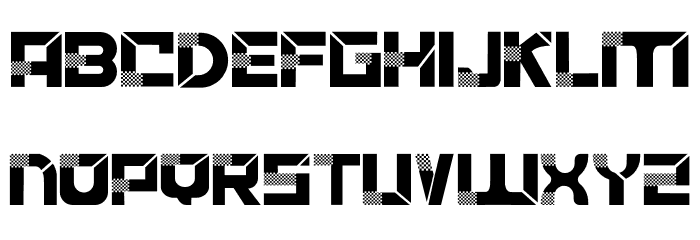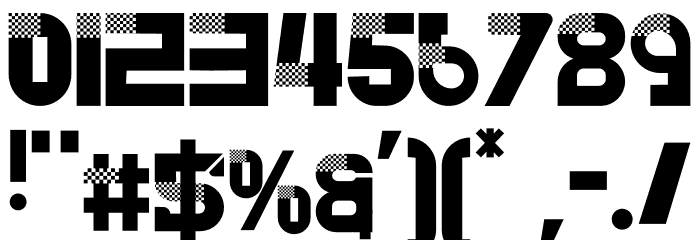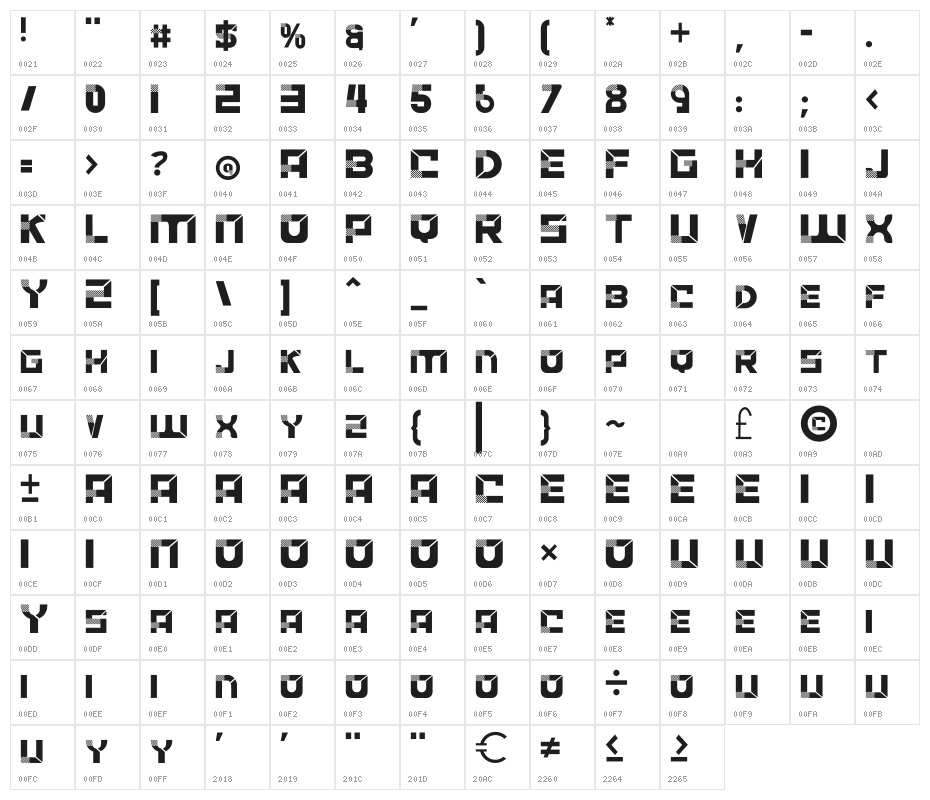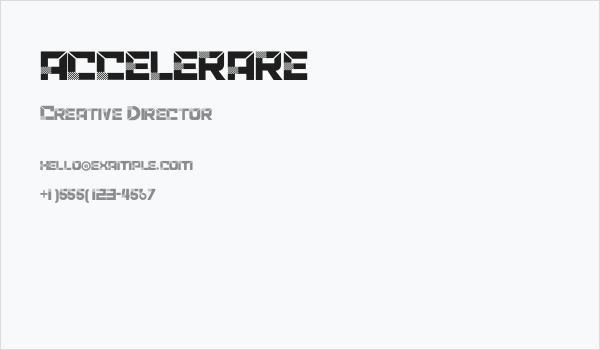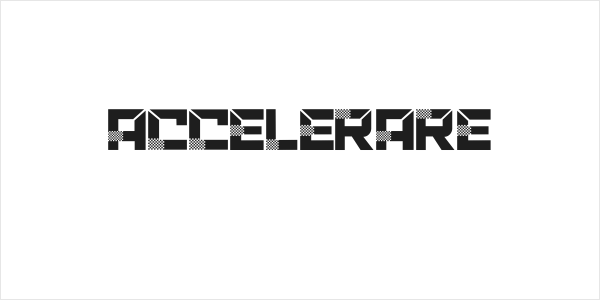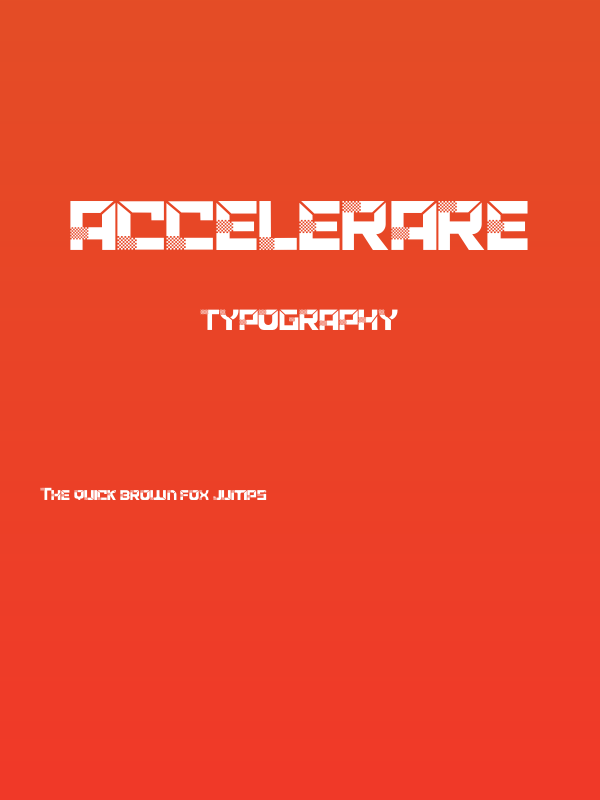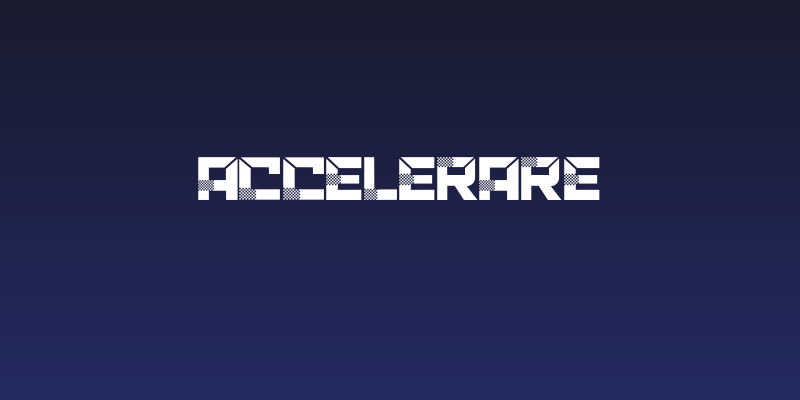
ACCELERARE Font
This font features a bold, geometric design with a distinctive checkered pattern integrated into each character. The letters are constructed with sharp angles and straight lines, creating a modern and dynamic appearance. The use of negative space and contrasting solid black areas enhances its visual impact. The font is highly stylized, making it suitable for attention-grabbing headlines or branding that requires a strong, contemporary look. The inclusion of numbers and special characters maintains the cohesive design, ensuring versatility across various applications.
A bold, geometric font with a checkered pattern and sharp angles.
- Proposed Projects: Ideal for sports branding, event posters, or any project needing a modern, edgy look.